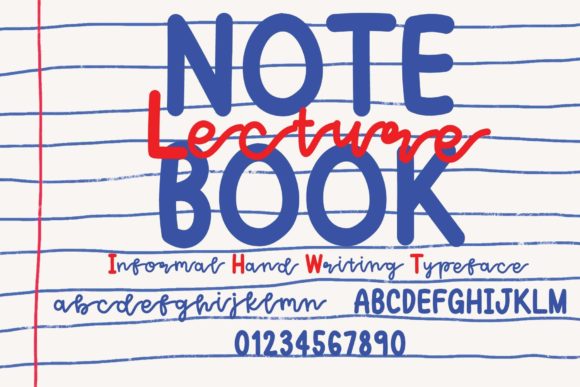
Notebook Lecture Font for Web Design
In the fast-paced world of digital product creation, finding a typeface that balances personality with usability is often the hardest part of the design process. We spend hours tweaking padding, adjusting color contrast, and optimizing load times, yet the typography often carries the heaviest weight in establishing brand tone. This is where Notebook Lecture enters the conversation. As a sweet and friendly handwritten font, it offers a distinct visual voice that cuts through the noise of generic sans serif interfaces. For web designers and UI creators, this script handwritten typeface is not just a decorative element; it is a strategic tool for building connection.
The Visual Personality of Notebook Lecture
When we talk about modern typography in web design, we often default to clean, geometric sans serif fonts for their neutrality. While effective, neutrality can sometimes feel cold. Notebook Lecture brings a human touch to the screen. Its natural and unique style mimics the rhythm of actual handwriting, creating an immediate sense of approachability. The strokes are fluid, suggesting movement and warmth, which is essential for brands that want to appear accessible rather than corporate.
From a UI perspective, the charm of this font lies in its imperfections. Perfectly aligned vectors can feel sterile, but the slight variations in Notebook Lecture’s baseline and stroke width create a visual rhythm that keeps the eye engaged. This makes it an excellent choice for projects where brand identity relies on trust, creativity, or personal connection. Whether you are designing a portfolio site for a photographer or a landing page for a life coach, the font acts as a visual handshake, inviting the user in before they even read the content.
Strategic Placement in Digital Layouts
Using a script font effectively requires understanding visual hierarchy. You cannot simply swap out your body copy for Notebook Lecture and expect readability to remain intact. Instead, treat it as a display font. Its primary strength is in short, impactful phrases. Here is how you can integrate it into various digital environments:
- Hero Sections: Use Notebook Lecture for the main headline or a sub-headline in your hero section. Pairing it with a bold, simple sans serif font for the supporting text creates a strong contrast that guides the user’s eye.
- Call-to-Action Areas: A short phrase like “Join Us” or “Get Started” written in this handwritten style can soften the commercial intent of a button, making the interaction feel more like an invitation than a transaction.
- Testimonials and Quotes: In course pages or service-based websites, using Notebook Lecture for client testimonials adds authenticity. It feels like a personal note, enhancing the perceived trustworthiness of the review.
- Section Dividers: Use small decorative accents or short transitional phrases in this font to break up long scrolling pages. It provides a visual breath between dense information blocks.
For online store owners, this font shines in banner graphics and promotional overlays. Imagine a boutique clothing brand using Notebook Lecture to announce a seasonal sale. The friendly aesthetic aligns with the curated, personal feel of a small business, differentiating it from large, impersonal retailers.
Readability and Responsive Considerations
As digital creators, we must prioritize accessibility. Handwritten fonts can pose challenges on smaller screens if not handled correctly. When implementing Notebook Lecture in responsive layouts, consider the following practical advice:
First, monitor your font size. On mobile devices, intricate script details can blur or become illegible if the text is too small. Ensure that any text set in Notebook Lecture is significantly larger than your body copy. Second, be mindful of line height. Script fonts often have ascenders and descenders that overlap if lines are too tight. Increase the line spacing to let the letters breathe, preserving the natural flow of the handwriting.
Contrast is another critical factor. This font performs best on light backgrounds with dark text, or vice versa. Avoid placing it over busy image overlays unless you use a solid backdrop or a strong text shadow to maintain legibility. For dark mode interfaces, test the weight of the font carefully; thinner strokes may disappear against dark backgrounds, so ensure you are using a version with sufficient thickness.
Font Pairing for Brand Identity
A standalone font rarely builds a complete brand identity. The power of Notebook Lecture is amplified when paired correctly. Since it is a decorative script, it demands a neutral partner. A clean, modern sans serif font is the safest and most effective choice for body copy. This combination ensures that while the headers capture attention and emotion, the detailed information remains easy to scan and read.
For a more editorial or sophisticated look, you might experiment with pairing it with a classic serif font. This works well for bloggers, writers, or luxury brands aiming for a timeless aesthetic. However, avoid pairing it with another script or a highly decorative display font, as this creates visual competition and confuses the user. The goal is balance: one voice for emotion (Notebook Lecture) and one voice for information (your body typeface).